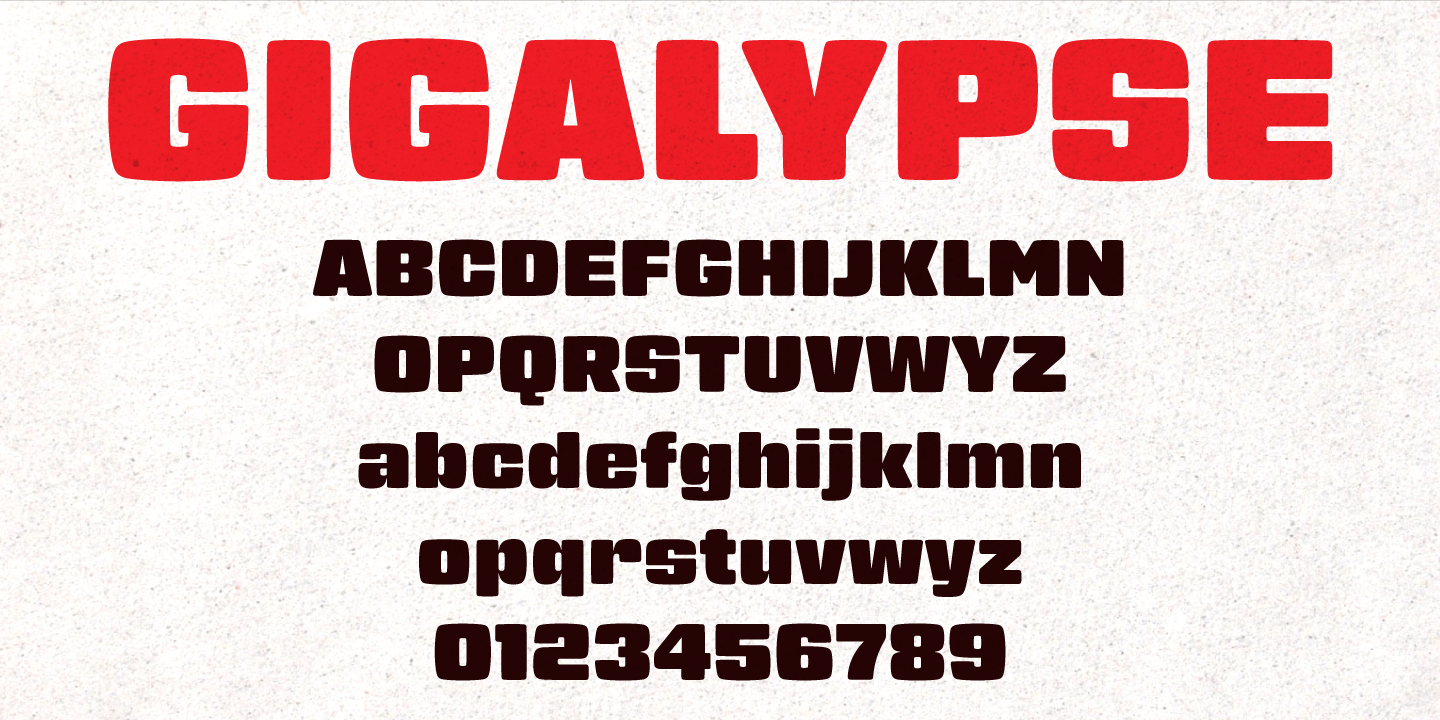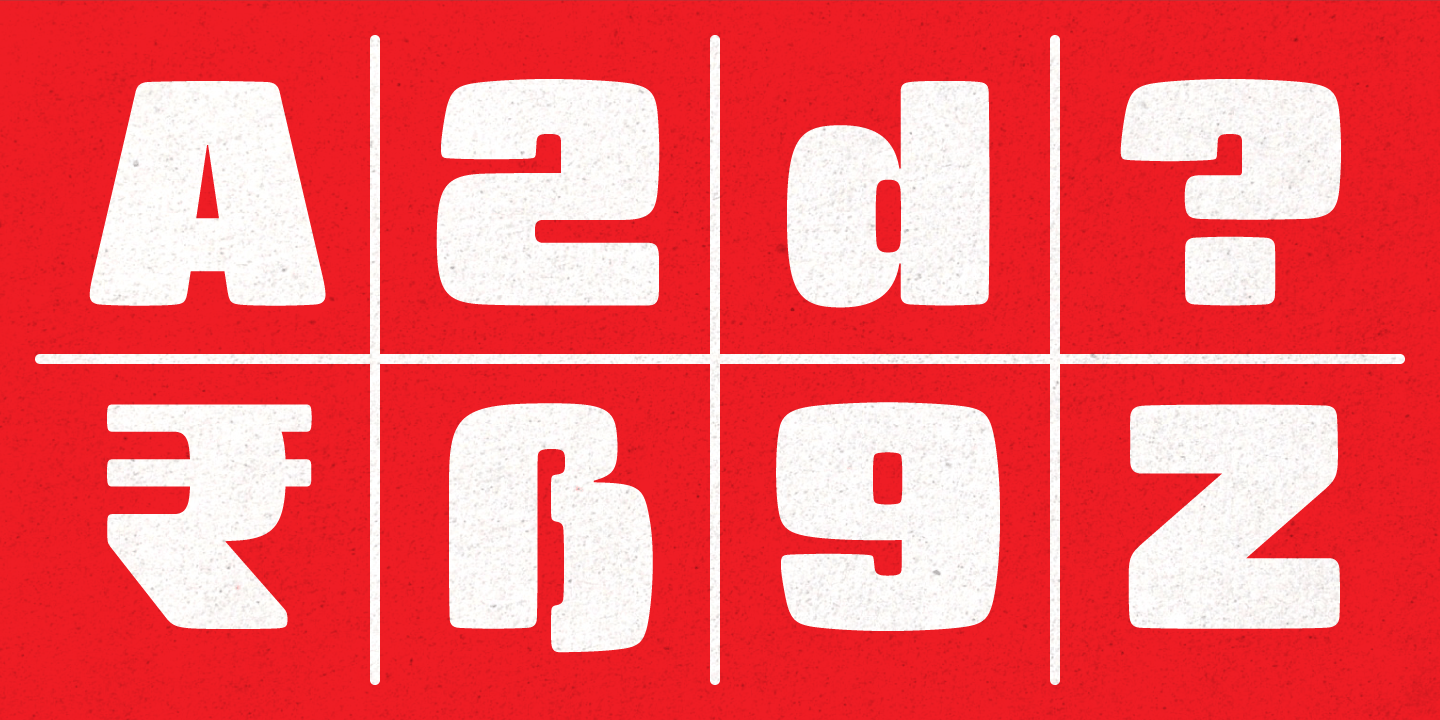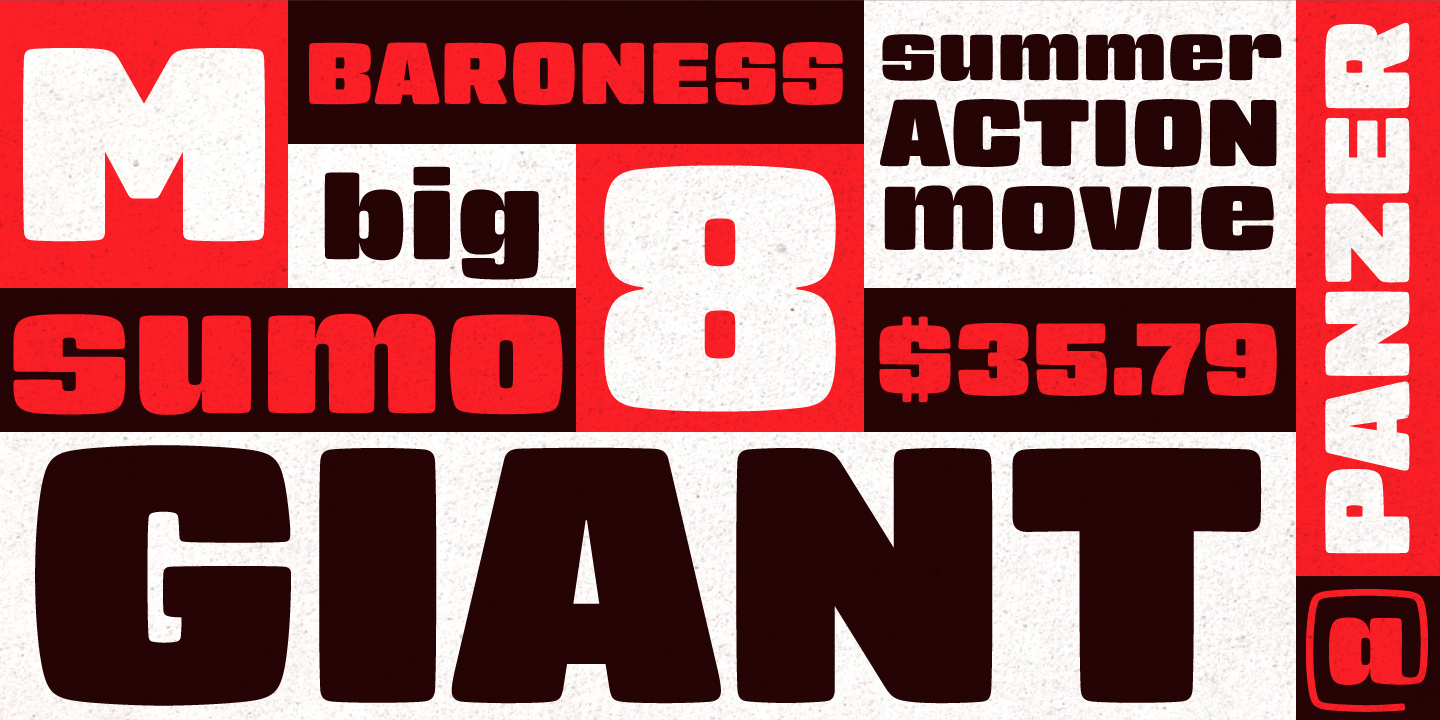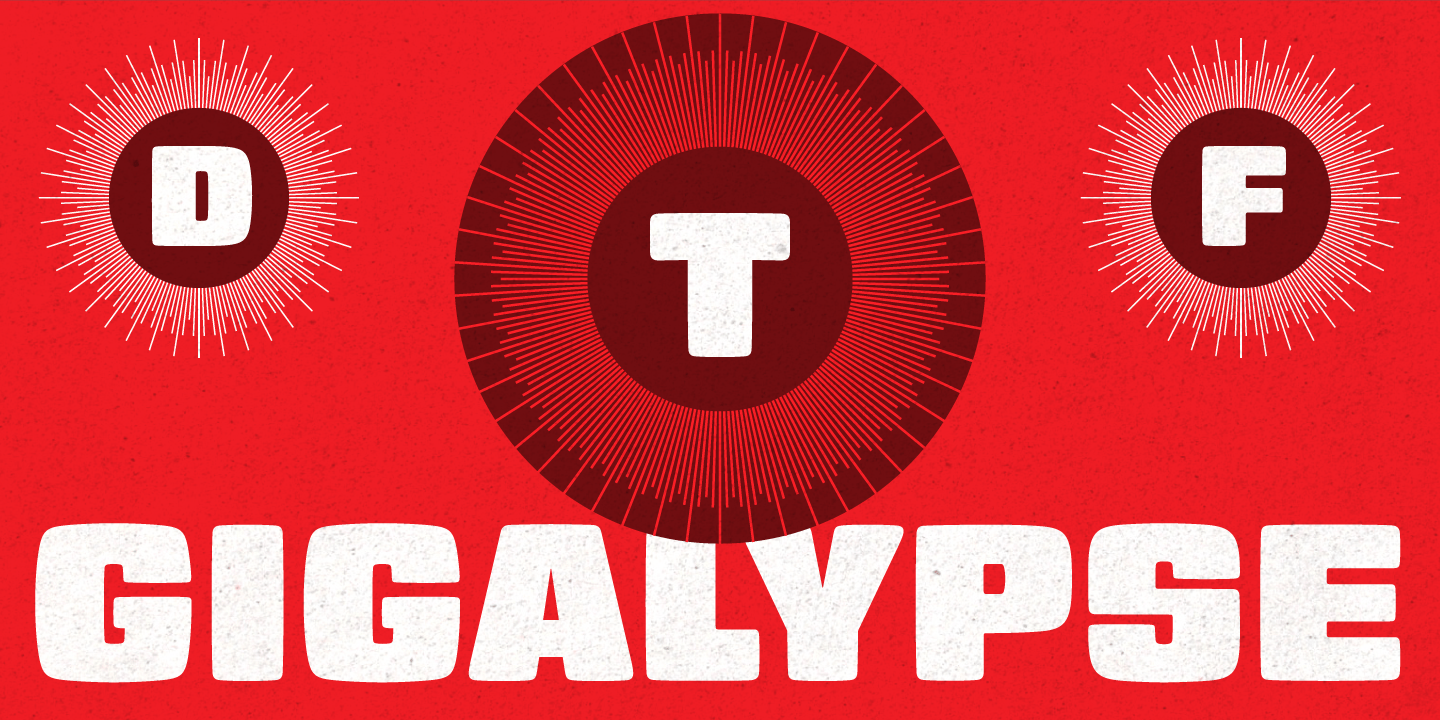
Gigalypse
About Gigalypse
Gigalypse is a one-weight workhorse. As a square sans Gigalypse can look smart, serious, and even futuristic. Round corners and curved sides add warmth and humor tempered by sophisticated geometry. This soft sophistication makes Gigalypse work whenever…